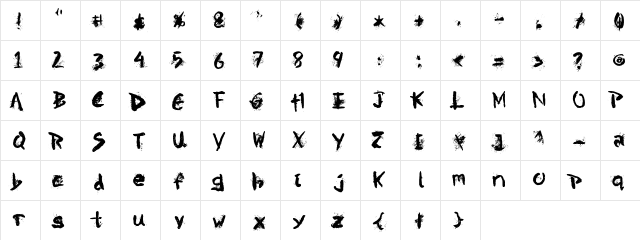
Complete DBE-Beryllium glyph index. Displaying only characters natively supported by DBE-Beryllium font.
DBE-Beryllium is a composed and adaptable typeface that performs quietly and consistently across a wide range of design contexts.
Who designed the DBE-Beryllium font?